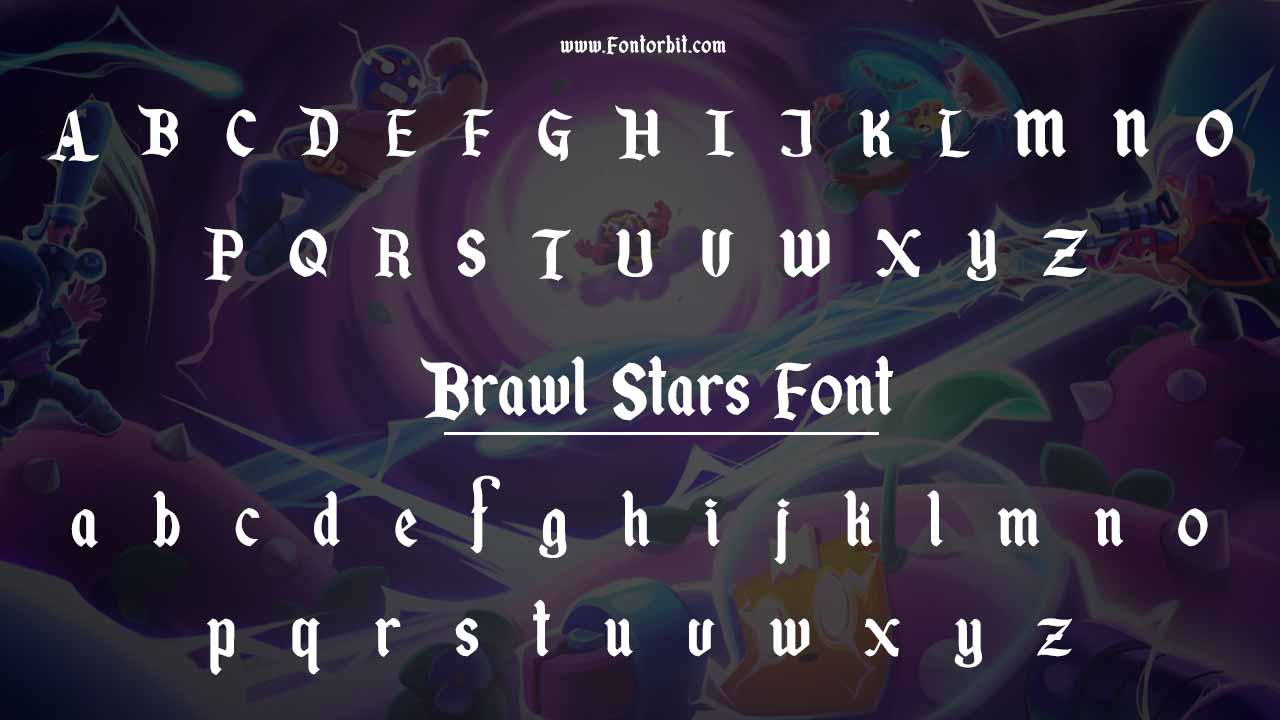
Brawl Stars Font is a bold and dynamic display typeface inspired by the popular mobile game, Brawl Stars, developed by Supercell. The font used in the game’s logo is known as Nougat, a retro serif design by Dieter Steffmann. With its playful and eye-catching style, the Brawl Stars Font has gained immense popularity among gamers and designers alike. Ideal for creating vibrant designs, the font is perfect for logos, posters, and other creative projects that aim to capture the adventurous spirit of the game.
Type Of The Brawl Stars Font (Font Family)
Brawl Stars Font is categorized as a display typeface that features bold and playful letterforms. The font family includes:
- Nougat Regular
The Brawl Stars Font Found In Use
The Brawl Stars Font is widely used for both personal and professional projects. Its vibrant and engaging design makes it suitable for:
- Game-related posters and banners
- Social media graphics for gaming events
- Merchandise like t-shirts, stickers, and mugs
- Animated or cartoon video titles
- Custom logos for gaming clans or teams
- Stylish headings in websites or blogs
Brawl Stars Font is a bold and exciting display typeface that embodies the adventurous and action-packed nature of the game. Whether you’re designing for a gaming event, creating custom merchandise, or simply adding a playful touch to your project, this font delivers style and energy. Download the font today and unleash your creativity with a typeface that’s as dynamic as a brawl!
1.What Is The Font Used In The Brawl Stars Logo?
The Brawl Stars logo font is Nougat, a retro serif typeface designed by Dieter Steffmann. Its unique combination of playful curves and bold characters captures the game’s lively action scenes and animated brawlers.
4.Are There Any Similar Fonts To Brawl Stars Font?
If you’re looking for similar fonts, Lilita One, Fredoka One, and Cartoonist all share that bold and playful vibe. These are perfect for projects that require dynamic headings, brawler logos, or engaging drawings.
5.What Makes The Brawl Stars Font Unique?
Nougat’s retro serif design is both versatile and visually striking, blending vintage charm with a modern edge. Its standout feature is the dynamic interplay of bold strokes and fun letterforms, making it ideal for action scenes, animated graphics, or themed events like an official palace Christmas event.
6.Where Can I Use The Brawl Stars Font?
This font is perfect for creating:
- Themed posters for events
- Gaming-related scene videos
- Personalized emails or newsletters
- Custom website designs for gaming communities
- Creative designs like toy story-inspired fan art
8.Can The Brawl Stars Font Be Paired With Other Typefaces?
For a complementary aesthetic, pair Nougat with fonts like Fredoka One for playful captions or Montserrat for sleek subheadings. Together, they can balance dynamic action scenes with clarity and readability.
9.What Inspired The Brawl Stars Font’s Design?
Nougat’s retro aesthetic was inspired by the classic serif font Dynamo, which emphasizes boldness and readability. This design choice aligns perfectly with the fast-paced action and brawler themes of the game.
10.Why Is The Brawl Stars Font Popular For Design Projects?
The font’s versatility makes it a favorite for:
- Game-related text boxes
- Posters for tournaments
- Drawings and fan art
- Creating personalized players’ nicknames or clan logos